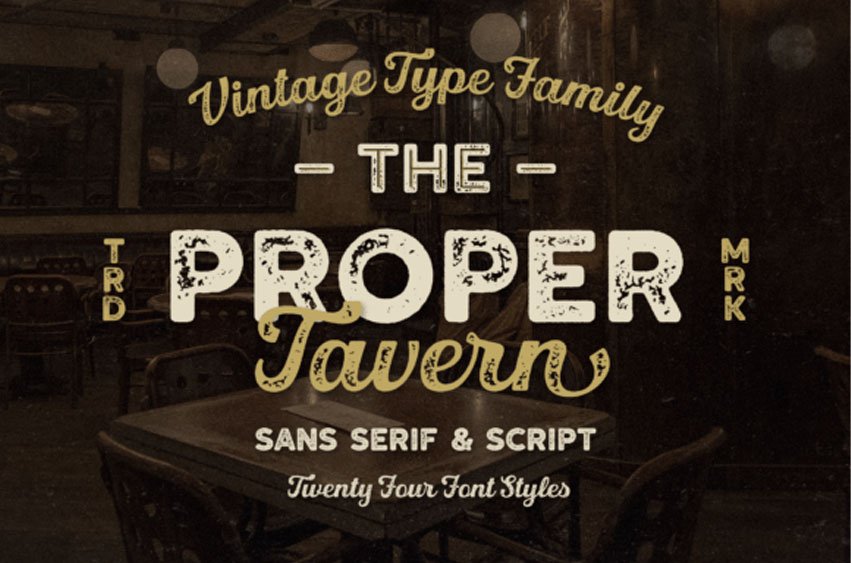
Proper Tavern Font
Proper Tavern Font is a vintage font collection inspired by old signboards and banners. This collection includes 24 font styles – Sans Serif has a regular, rough, inline, inline rough, stamp, halftone, inline stamp, shadow, also cores also have a separate style for greater customization.
The script has a regular, rough, stamp, halftone style. The script font includes alternatives for Uppercase and Lowercase, as well as swashes.